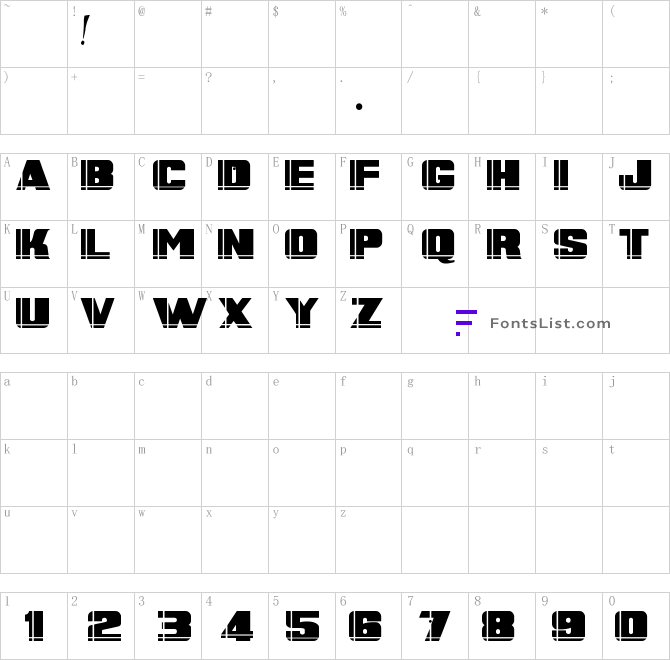
- Font Name:Banner Script
Banner-Script-copy-1-.ttf is a very beautiful artistic font, Banner-Script-copy-1-.ttf is widely used in the design and printing of various books and pictures,Banner-Script-copy-1-.ttf has a strong visual impact,Banner-Script-copy-1-.ttf is a commonly used font in newspapers, magazines and books, and is used in posters, e-commerce Poster design, store design, logo design, font design and other fields.Banner-Script-copy-1-.